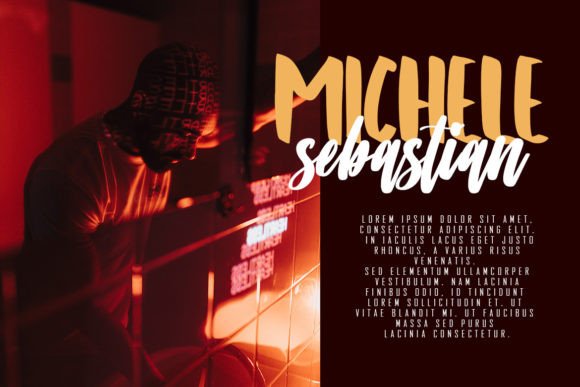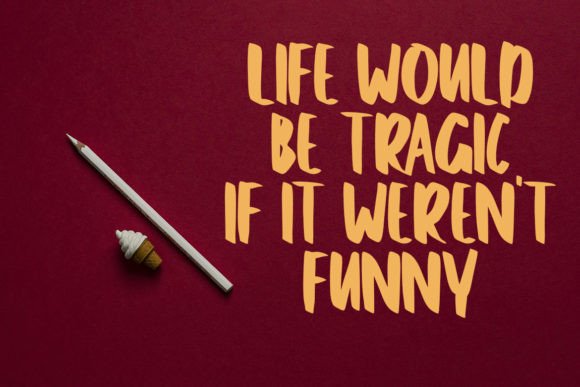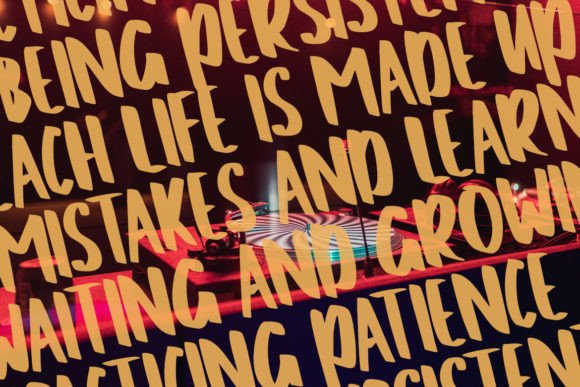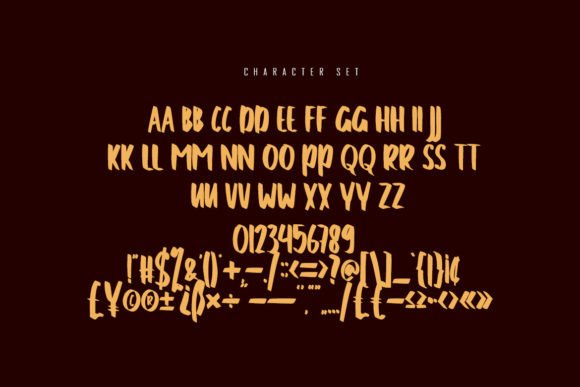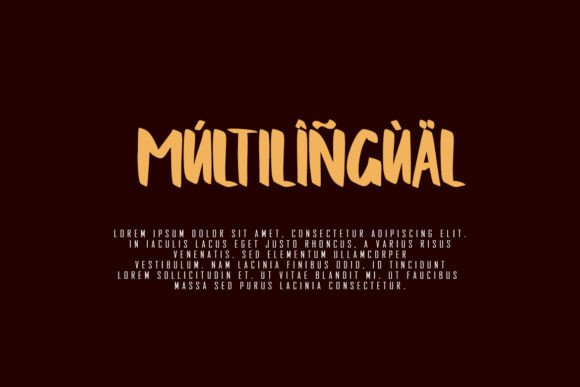
About Posibles Font
**Posibles Font** is more than just a typeface; it’s a bold and cool handwritten expression crafted to infuse your most creative projects and ideas with style and personality. This font is designed to make a statement and stands out with its bold and distinctive appearance.
Whether you’re working on logos, letterheads, product packaging, branding materials, magazine titles, or any other creative project, **Posibles Font** is tailored to elevate your designs. Its boldness adds a dynamic and confident touch to your text, making it suitable for a wide range of applications where a cool and eye-catching aesthetic is desired.
The versatility of this font makes it a valuable asset for your design toolkit. Its bold strokes and cool vibe create a visual impact that resonates with modern and creative design sensibilities. Applying **Posibles Font** to your projects allows you to communicate a sense of style and uniqueness.
In summary, **Posibles Font** is a bold and cool handwritten typeface, perfect for unleashing creativity in various projects. Whether it’s logos, branding, packaging, or titles, this font adds a dynamic and stylish touch, making your designs stand out with confidence and coolness.